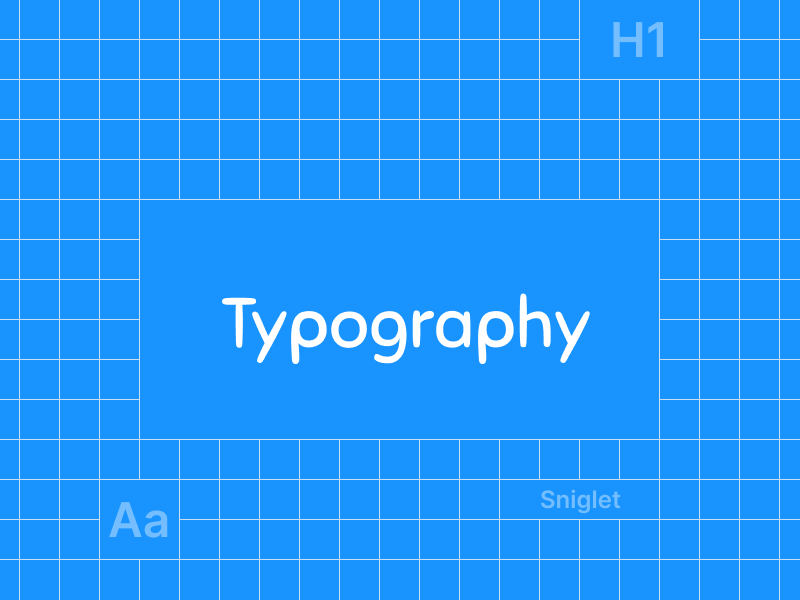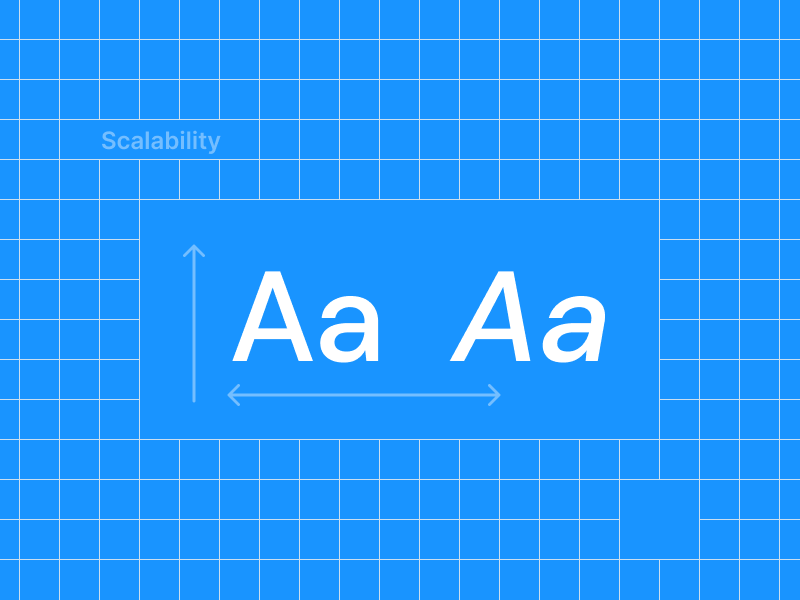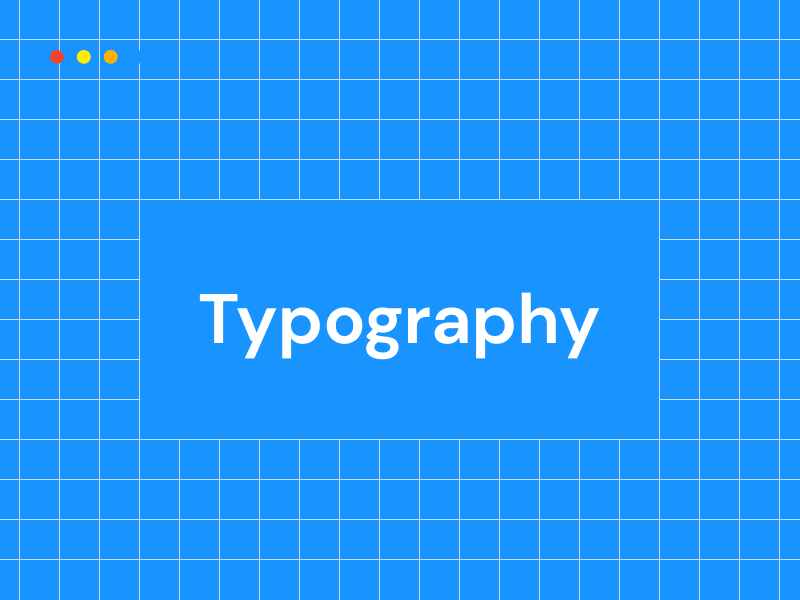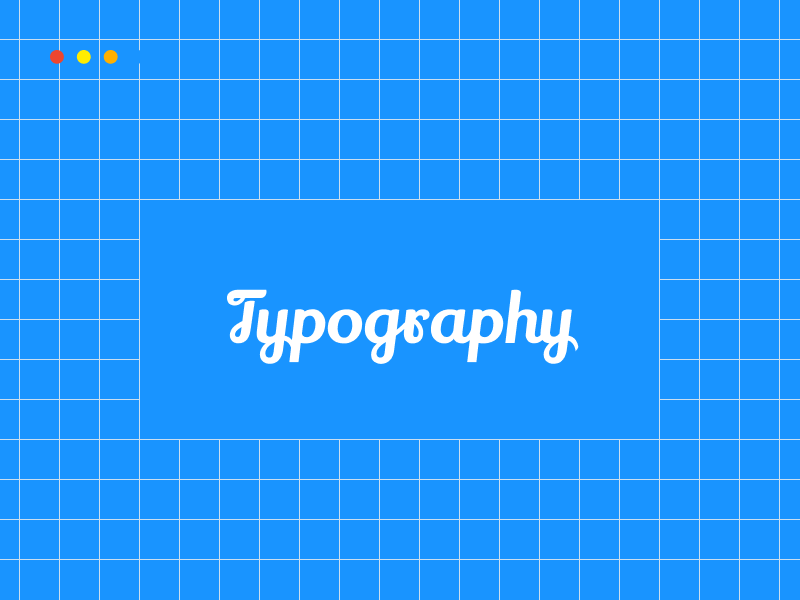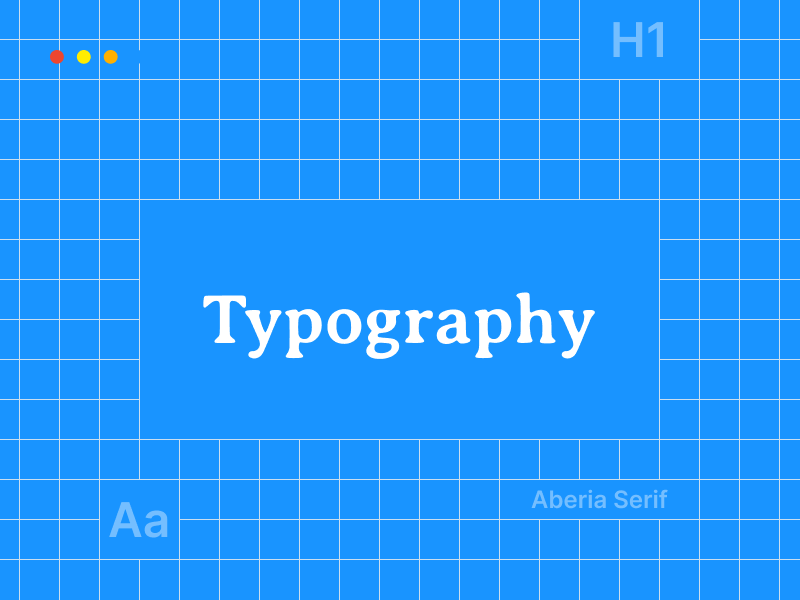
Have you worked hard on business logo designs, but they didn’t come out as you expected? Despite your best efforts, something about your logos is not clicking? Then perhaps you are not choosing the best font for your business logo.
Logo fonts are often neglected or overshadowed for presumably more important aspects of the logo design, such as colors, icons, or styles. But if your logo includes words, selecting the right typography should be on your top priorities list. Skipping this step or leaving it for the last minute can compromise the overall feel of your brand logo.
Choosing the right typography at the beginning of the project sets you off to a great start, paving the way to a highly recognizable and engaging company logo.
In this article, I’ll share the top 4 business fonts for logos my Los Angeles web design agency uses and what feeling they evoke. You’ll also learn how to choose the right font for your project and when it’s ok to step aside from conventional font types and let creativity take over.
Typography is a powerful tool; it holds the power to convert your brand story, personality, and core values. It shapes the way your target audience perceives your company and how they behave towards it.
Different typography evokes different feelings, making the logo font selection not an easy task. However, despite the wide range of fonts available out there, the best fonts for business logos fall under 4 categories:
Serif fonts include any font type that has serifs—small decorative lines or pen strokes at the end of each letter. These decorative lines convey a sense of tradition, authority, and elegance, making serif logo fonts the preferred choice for luxury website design and prestigious brands such as The New York Times and Rolex.
Serif fonts have a professional vibe that suggests the weight of experience and reputation. Hence, they are widely used among law businesses’ logos and make an excellent financial font.
If your brand is known for tradition and sophistication, and you want the logo to evoke trust and reliability, this typeface is the right one. Some good serif logo fonts include Times New Roman, Garamond, Didot, and Slab Serif.
Sans serif fonts are typefaces without the little strokes hanging from the end of the letters, aka serifs. The majority of the biggest companies worldwide use this font style, which works well for almost any business logo.
By losing the decorative strokes, sans serif fonts have a more polished and minimalist appearance. making them ideal for modern clean logo design. They are often used for tech logos or innovative companies, startups, and fashion brands, such as Google, Facebook, Nike, and Vogue.
Their clean and simple design allows for sans serif font combinations with other typeface styles to create unique business logos. Some examples of this font include Helvetica, Futura, Frutiger, and Kerning.
Script fonts are typefaces with ornaments and loops at the end of each letter. These flourishes resemble handwriting and brush strokes, which add a touch of elegance and personalization to business logo fonts.
The most common scrip logo typography are cursive fonts that communicate feelings of formality and luxury and work great for hand drawn logos. While this font style is perfect for exuding your elegant brand personality, it can be more challenging to read. When using cursive script font, always ensure you prioritize readability.
Script logo fonts are often used by luxury, fashion, and creative brands, including Cartier, Cadillac, Disney, and Coca-Cola. Some nice scrip font examples are Great Vives, Pacifico, and Brush Script.
Display logo fonts are decorative typefaces that stand out from conventional fonts. They enable you to unleash your creativity to communicate your brand personality and grab your audience’s attention at first glance.
When talking about display fonts, I mean geometrical, futuristic, experimental, and retro font design. They often include an intricate design that sets them apart from other fonts and makes them perfect for brands looking to showcase their unique identity. Lego, Fanta, and Harley Davidson are brands that use decorative fonts to display their creativity and personality.
Despite their many benefits, I recommend you use display business fonts sparingly. Make it the main element of your logo design, but don’t combine it with other typefaces, and avoid adding excessive extra elements; it could make your logo distracting and confusing.
Use display typography minimally to create eye-catching business logos with fotns such as Broadway, Impact, and Raleway.
Now you know the most used fotns for business logo design, but how can you pick the best font for your business logo?